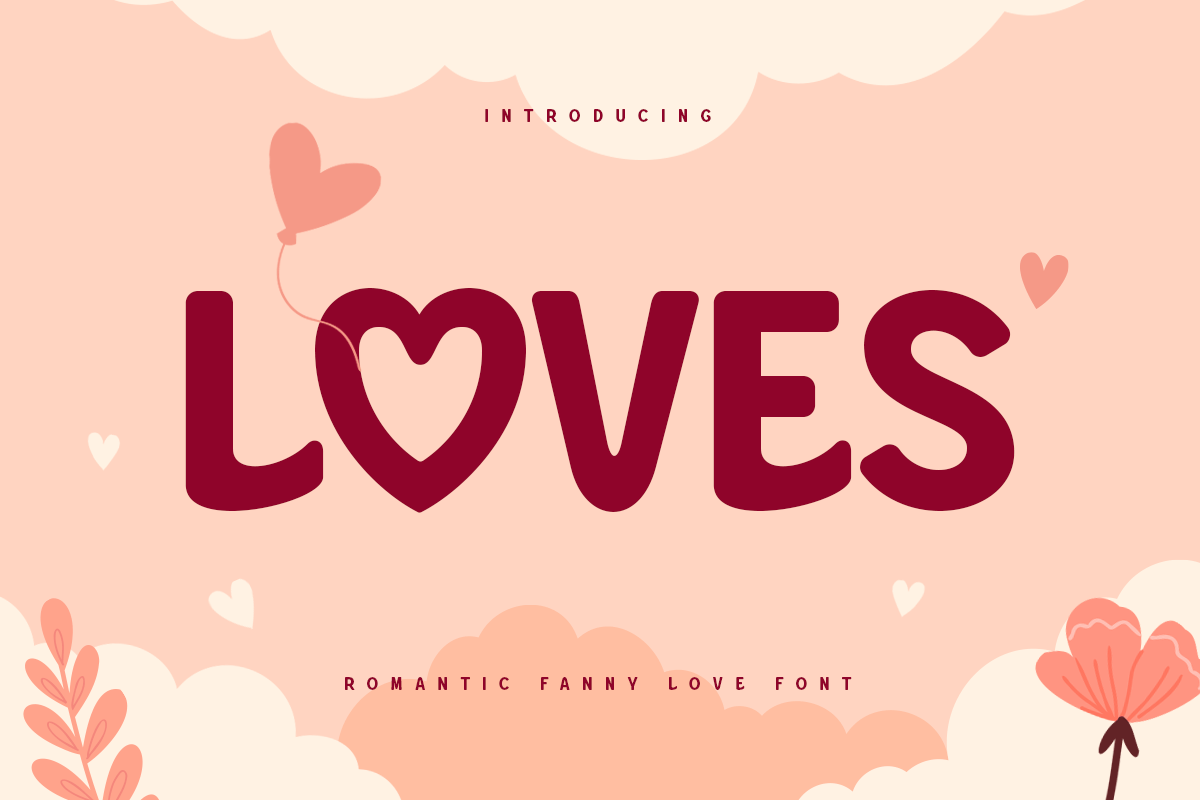
Loves
-Romantic Funny Love FontType Tester
A Love Valentine Romantic font that we created special for lovely moment needs, like valentine and kids branding with extra unique characters will be ready to add value of your brand. It so nice to leverage designer or product owner that need solutions to make their design look more lovely and funny. And specially for Loves font, We prepared any unique characters to help you create unlimited variations for your creative needs.
Loves Romantic Funny Love Font ready with:
Any options to get unique creative characters
Preview as a inspirations that you can do with Loves font